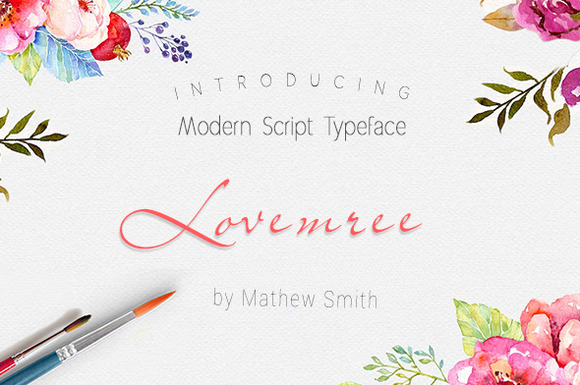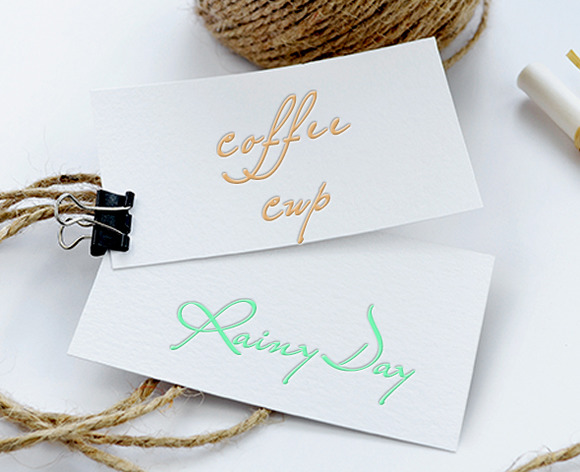
Lovemree Script Font
Introducing New Script typeface Lovemree. Full hand made and high details font. Can be used for various purposes like headings, signatures, logos, wedding invitations, t-shirts, flyers etc.